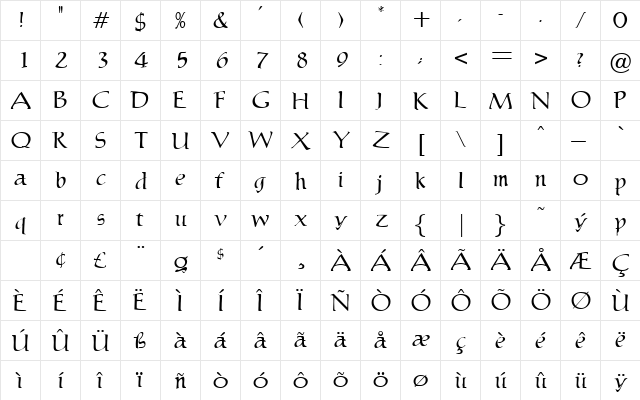
Marylebone DB Regular
Design Context for Marylebone DB Typeface
Marylebone DB offers clean, dependable letterforms without strong stylistic allegiance, making it a practical choice for designers who need flexibility.